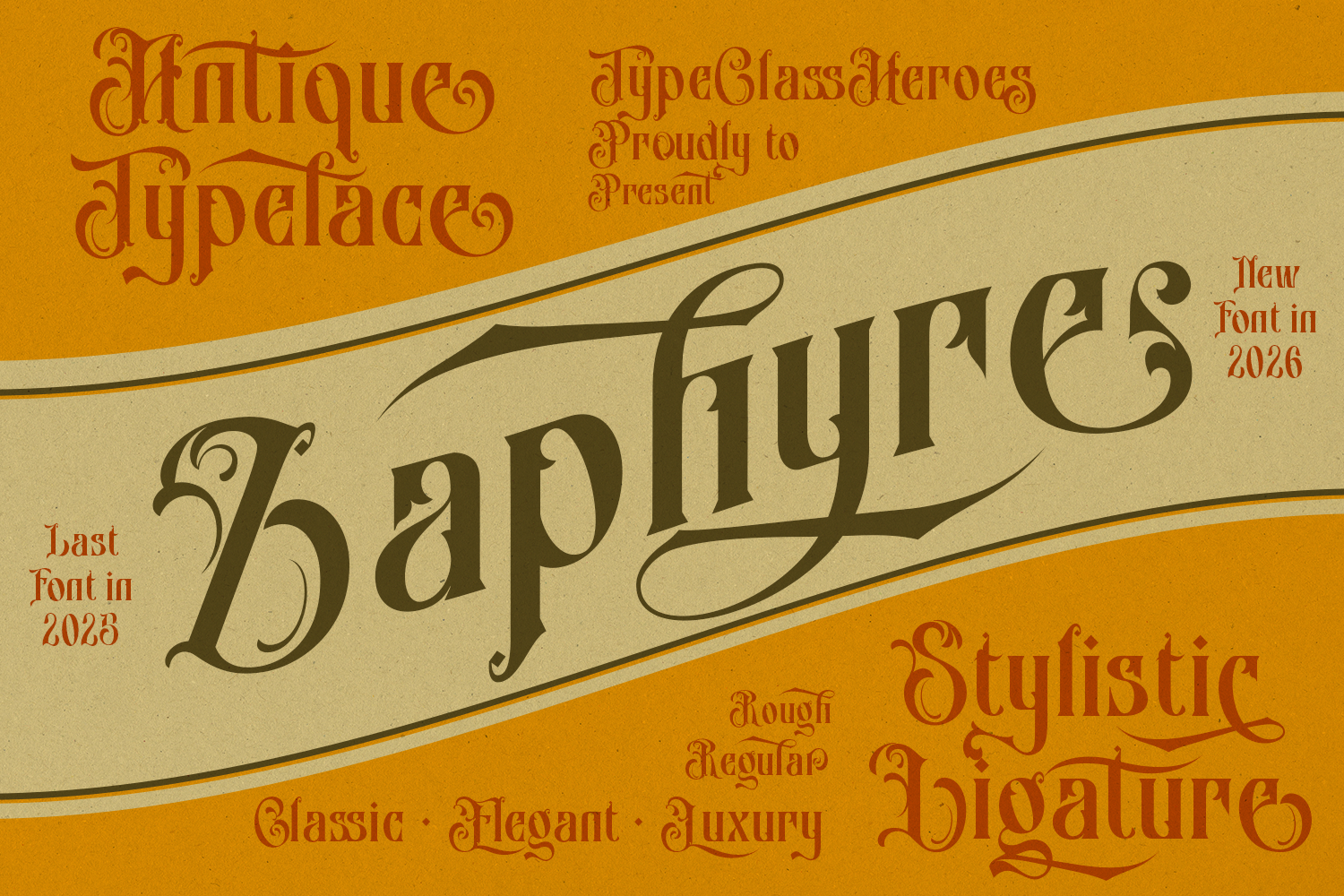
Zaphyre Antique Font
Introducing Zaphyre, a font that showcases an antique typeface style enriched with numerous ligatures, swashes, and swirling ornaments available in both regular and rough versions. This font exudes elegance, artistry, and character, with each letter flowing intricately to create a fantasy, magical, and mysterious ambiance. Its design evokes the typography found in medieval or mythical tales, making it ideal for branding, packaging, and creative projects that seek to capture a sense of wonder and nostalgia.
Feature
•  Uppercase & Lowercase
•  Number & Symbol
•  International Glyphs
•  Alternative
•  Ligature